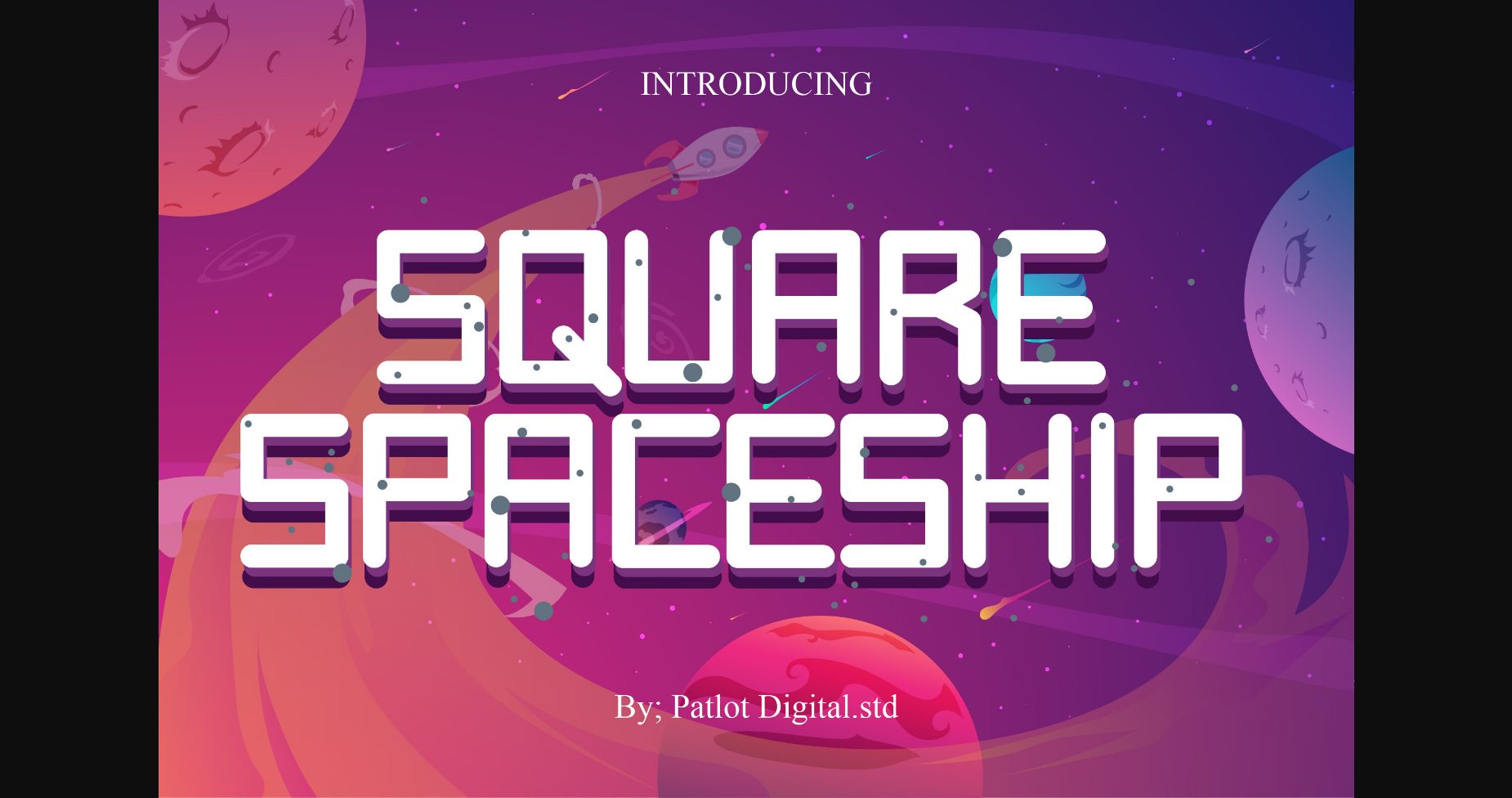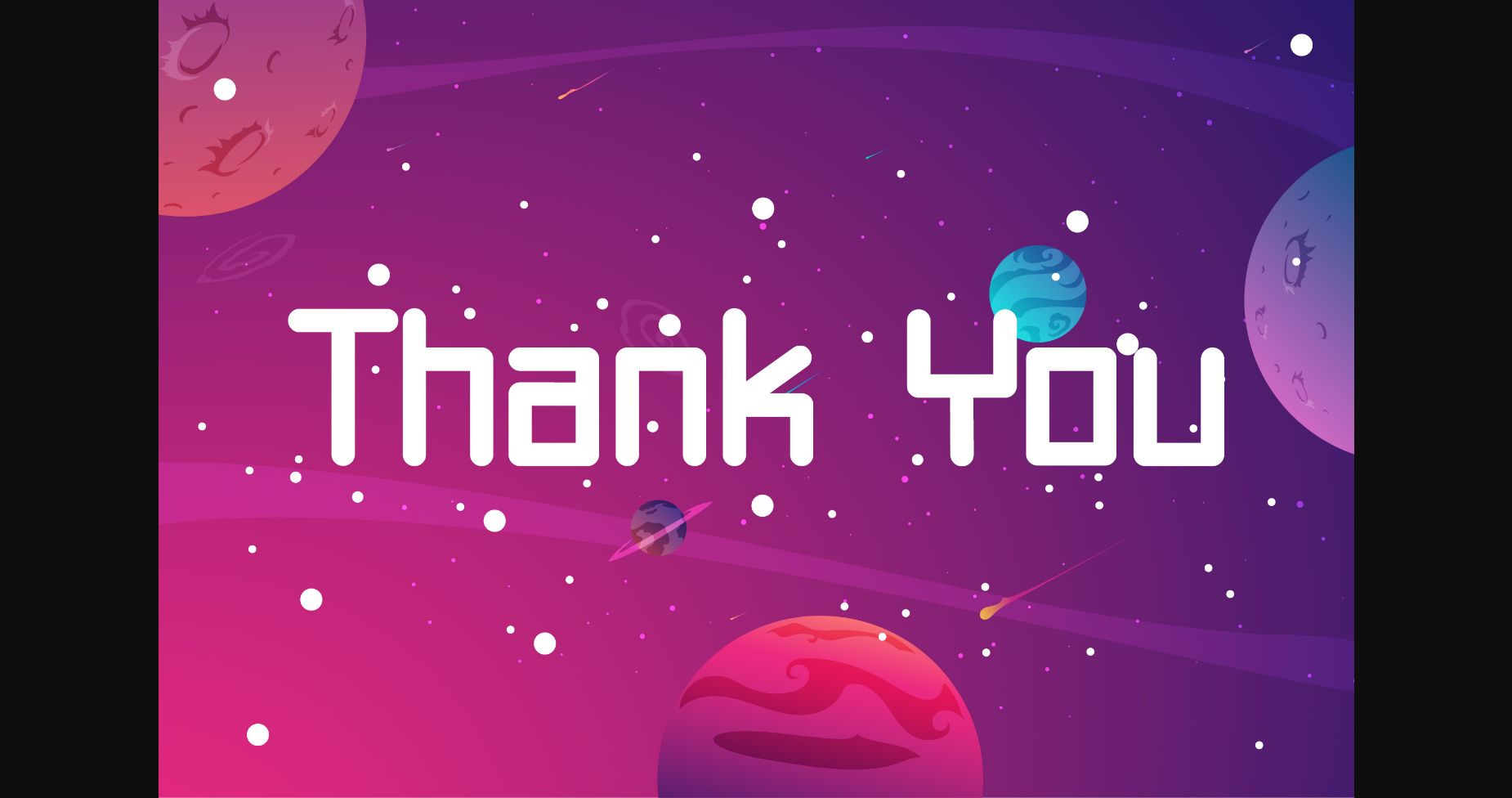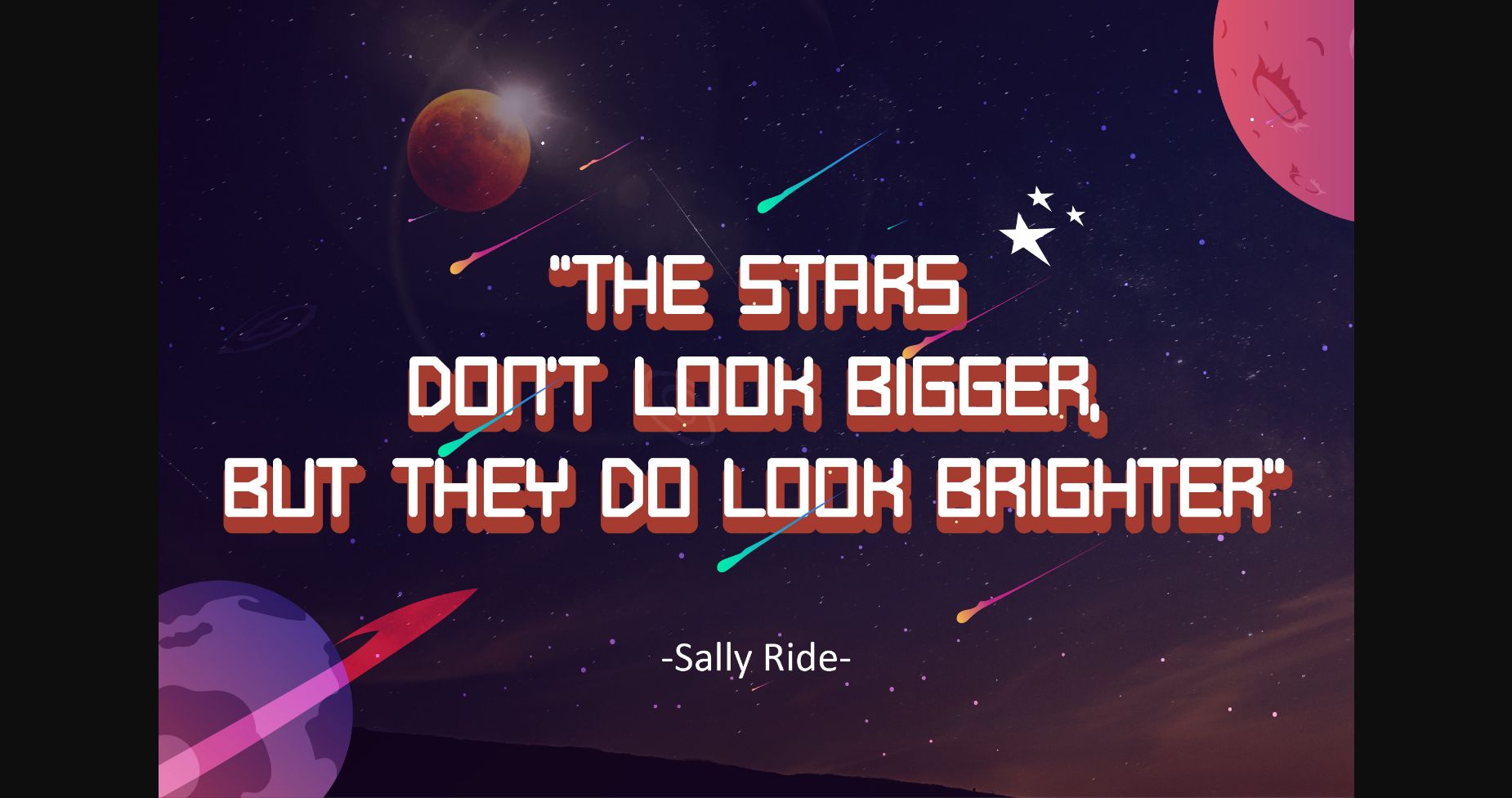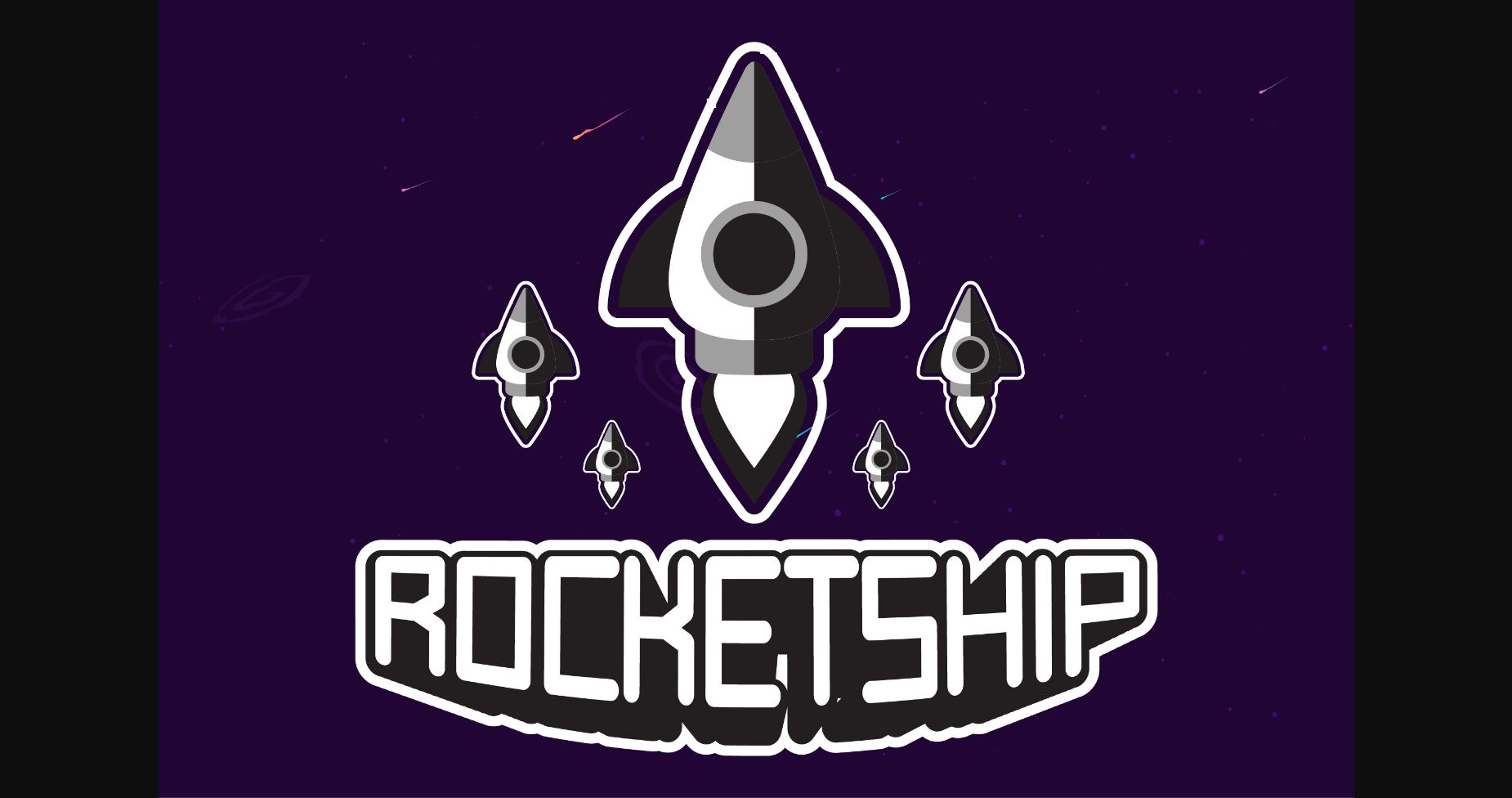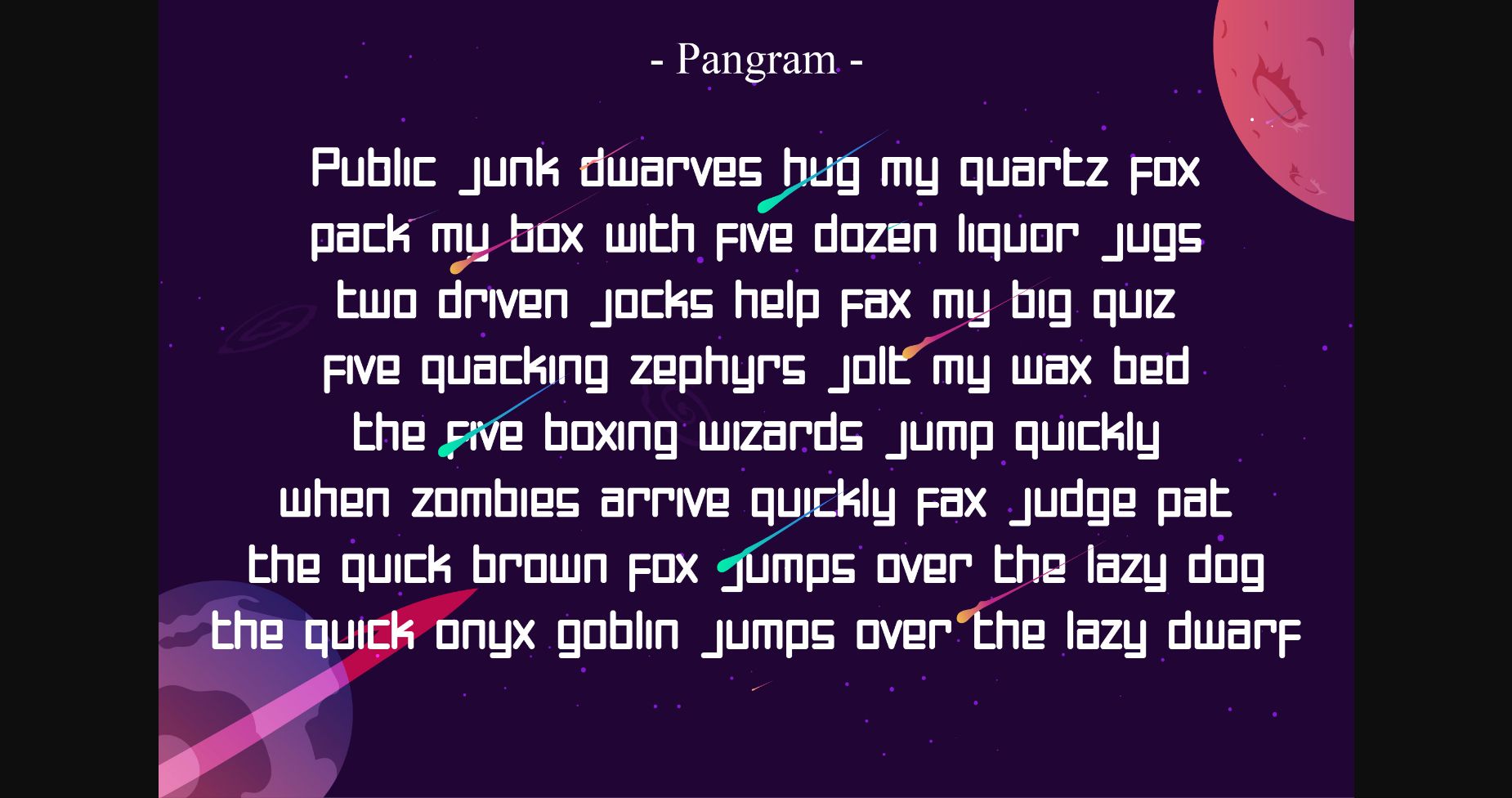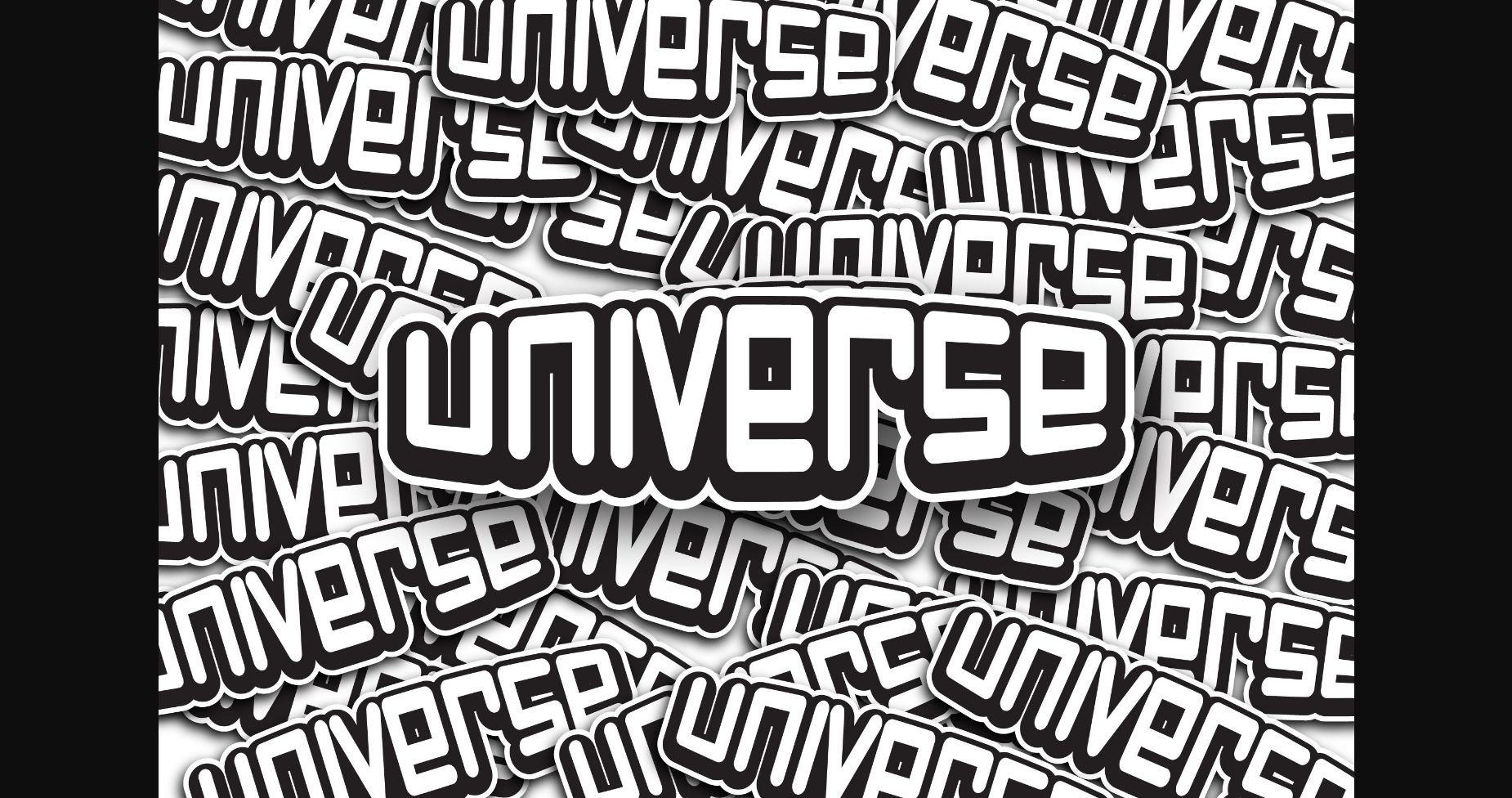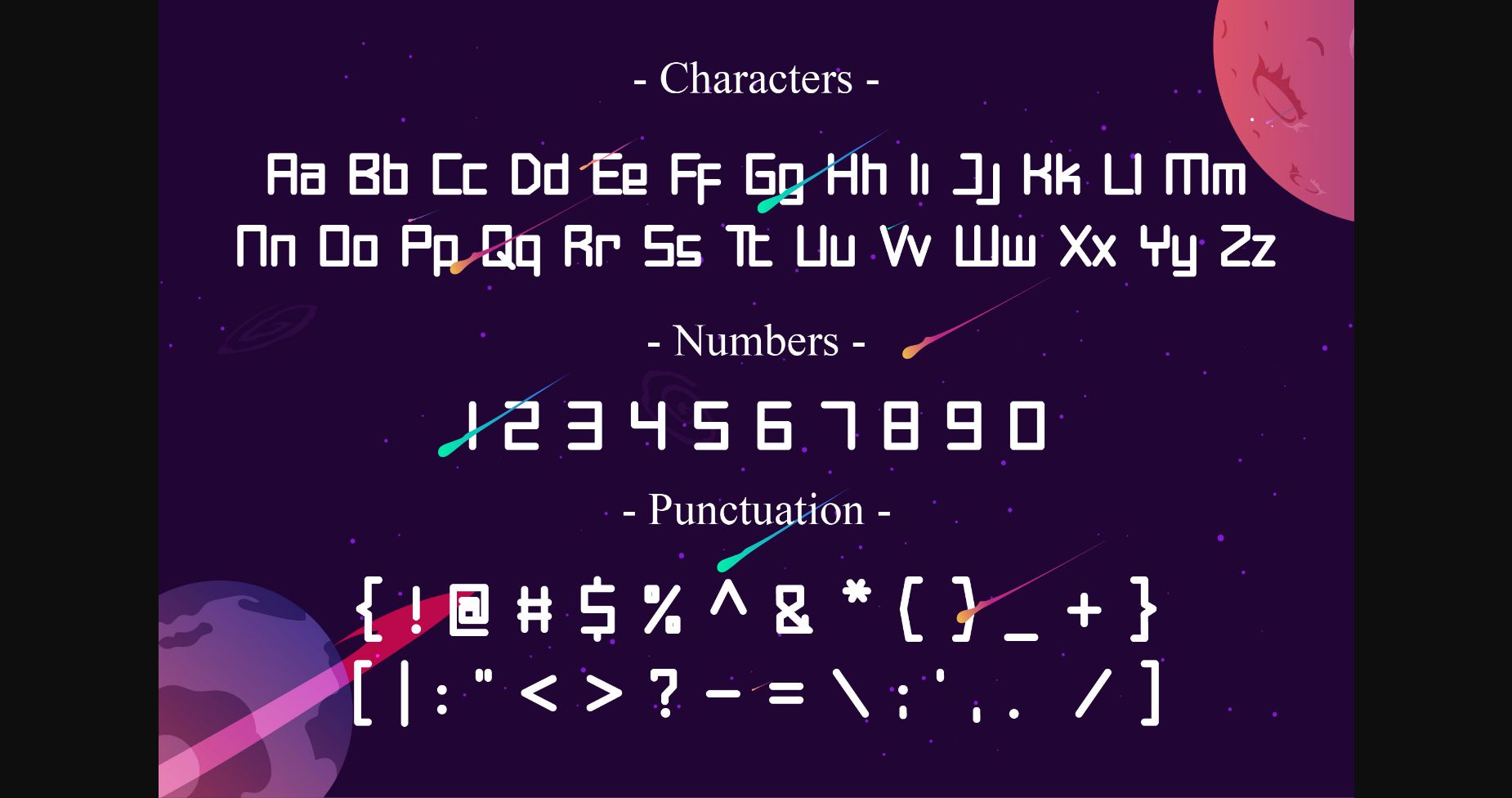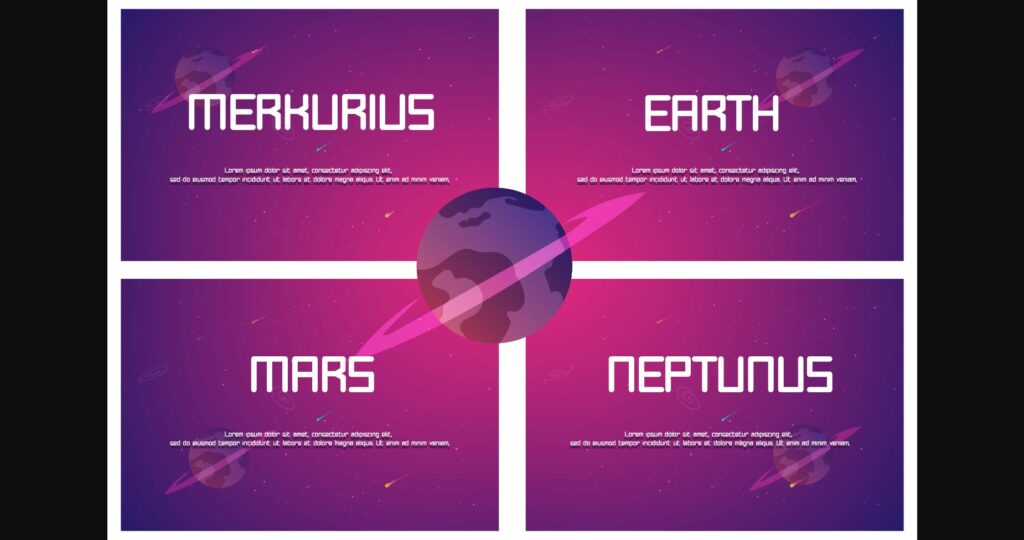
Square Spaceship Font
About Square Spaceship Font
Square Spaceship is a modern and futuristic sans serif font. It is suitable for any of your special projects like headlines, promotion, events, branding, advertising, magazine, signage, invitation, stationery, social media posts and so much more.